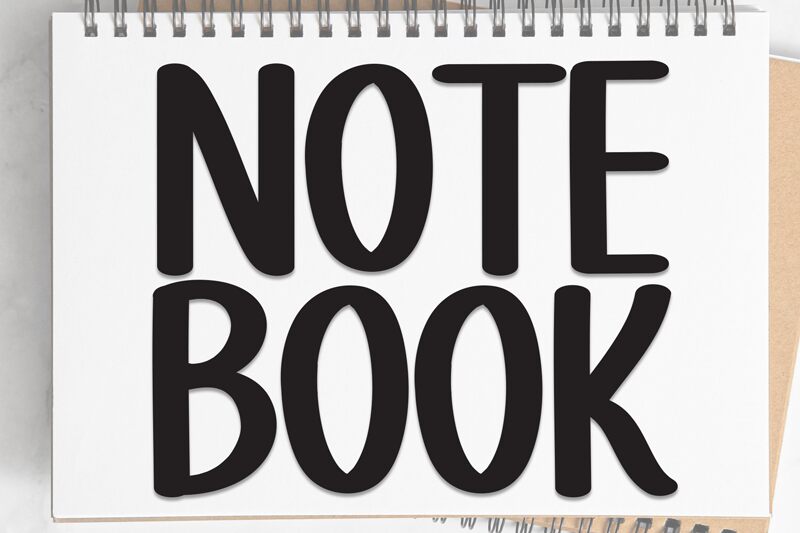
Note Book font by Andi Moz offers a contemporary aesthetic suitable for versatile, casual, and modern applications. The free handwritten font has a rounded appearance that brings a friendly and approachable feel to your design projects. It is most appropriate for informal contexts and contemporary applications such as branding, casual communications, poster designs, and more.
Just like handwriting in a real notebook, Note Book font has a natural feel to it as the artist intended. Use it in creating note-like visuals, handwritten notes, magazine and book titles, web blog titles, video subtitles, and invitation card printing. Additionally, feel free to incorporate it in advertising, branding, product packaging, website design, apparel, and more.
This is a sweet and friendly handwritten display font. Cute and fun, this font is ideal for writing wedding invitations, cards, or any other design that might need a playful touch!